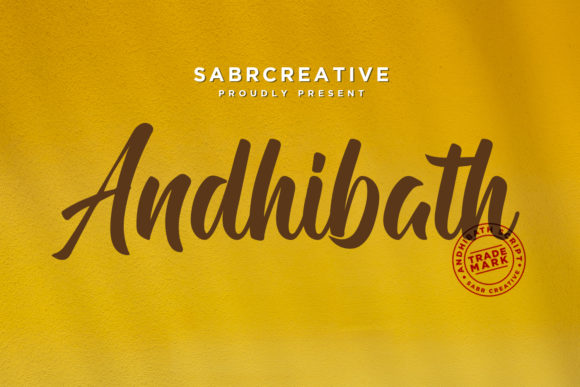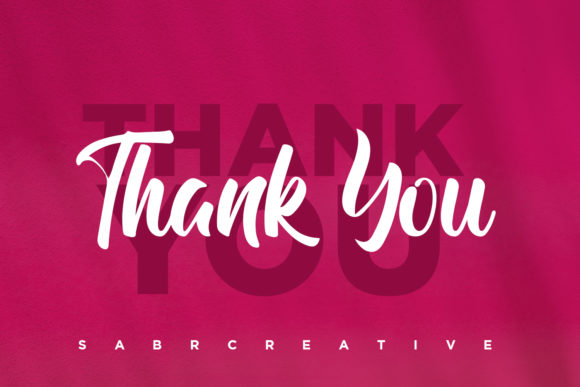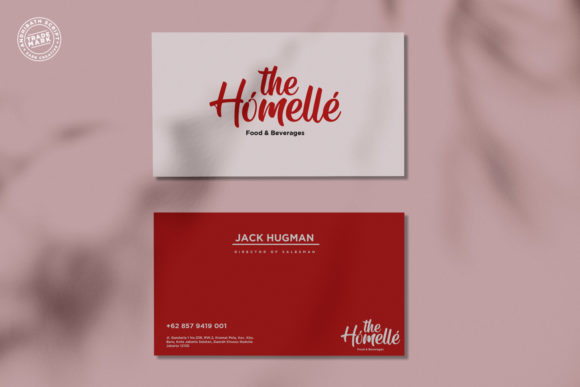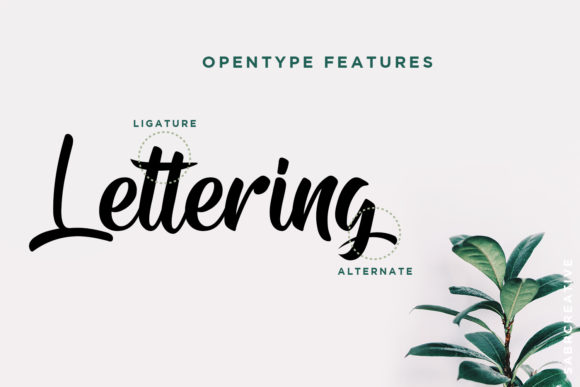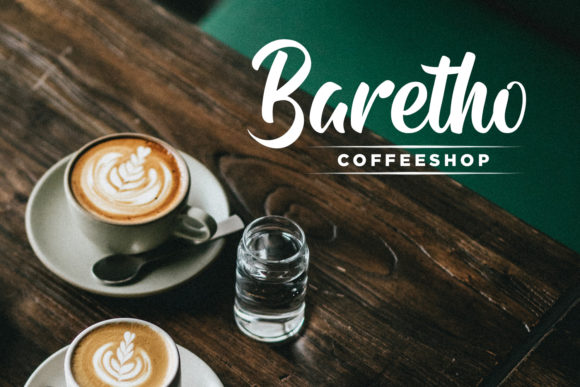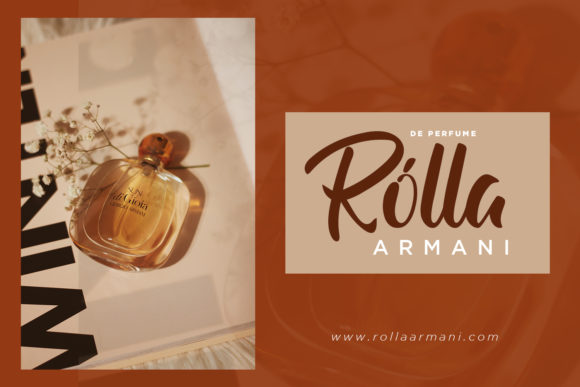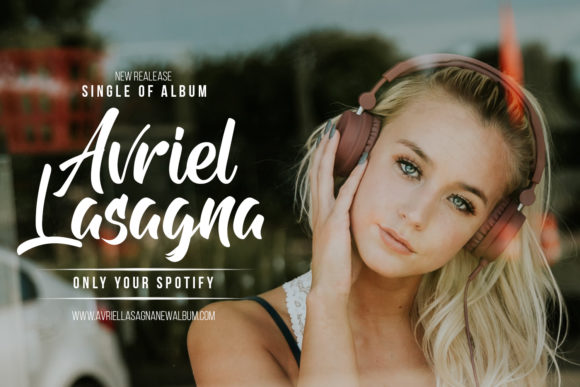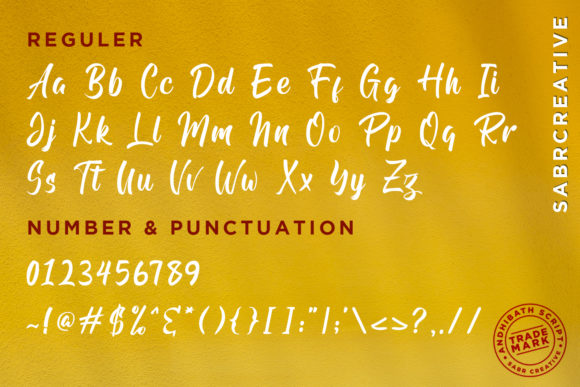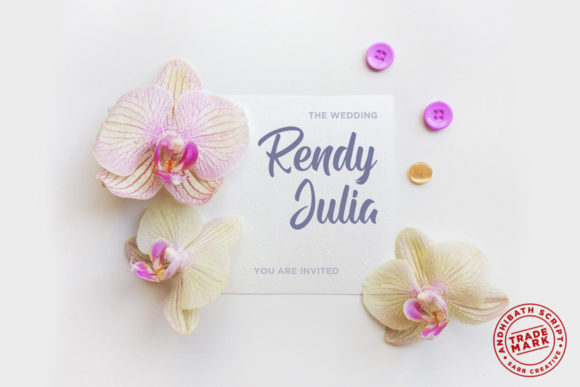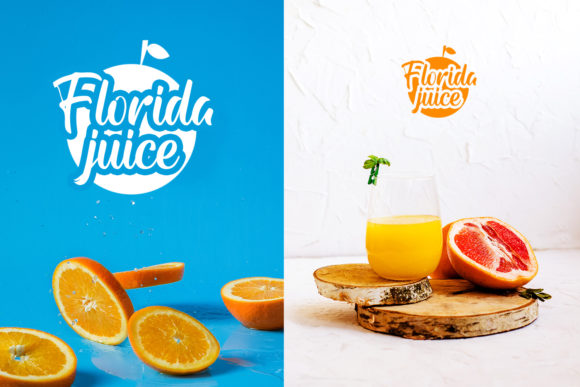
HomeScript FontsAndhibath Font Script Fonts Andhibath Font FacebookXPinterestWhatsApp Andhibath Font Poster 2 Andhibath Font Poster 3 Andhibath Font Poster 4 Andhibath Font Poster 5 Andhibath Font Poster 6 Andhibath Font Poster 7 Andhibath Font Poster 8 Andhibath Font Poster 9 Andhibath Font Poster 10 About Andhibath Font Andhibath is a classic script that looks & feels timeless. It makes a great addition to any design project! DOWNLOAD ON CREATIVE FABRICAThis font is sold and delivered by Creative Fabrica. Font Canyon may earn a commission if you buy through this link. People also explored Rashmita Font Darelina Font Play Web Page Font Rillavi Font Rich Ganbatte Font Castonila Font Highland Font Beautiful Font Joking Font 330 0 TagsAndhibath Font Previous articleAneetha FontNext articleFly Feather Duo Font LEAVE A REPLY Cancel reply Comment: Please enter your comment! Name:* Please enter your name here Email:* You have entered an incorrect email address! Please enter your email address here Website: Save my name, email, and website in this browser for the next time I comment. Personal Use Free Mowgli Personal Use Free Read more about this font Cranberry Gin Personal Use Free Read more about this font Oatmeal Personal Use Free Read more about this font Just Smile Personal Use Free Read more about this font BLOG Best Fonts for T-Shirt Design – Top 2025 Picks In 2025, t-shirt design has become more than just fashion—it's a form of self-expression. Whether you're... Fonts That Capture the Spirit of New York City Exploring Font Trends Transform Your Website: Elevate Your Typography with 7 Best Web Font Generators